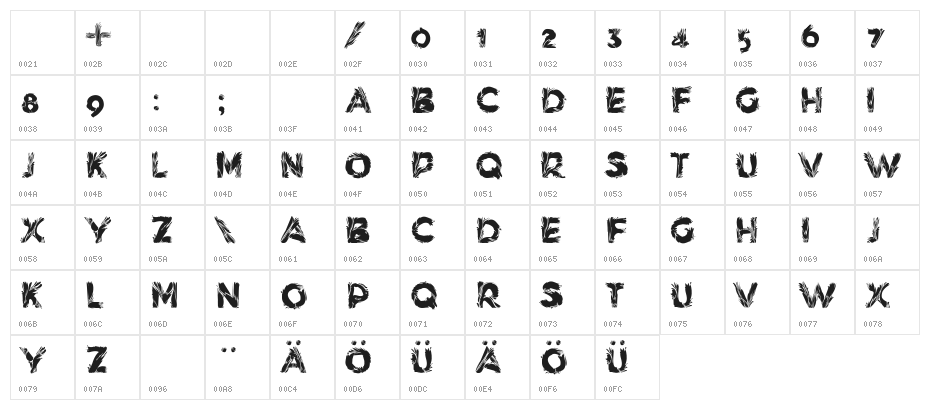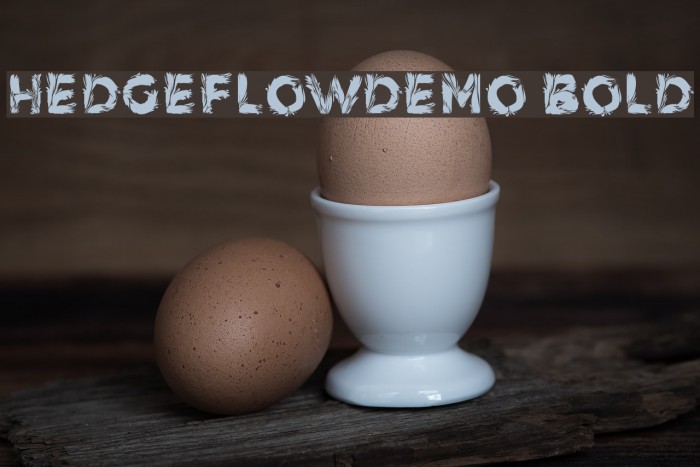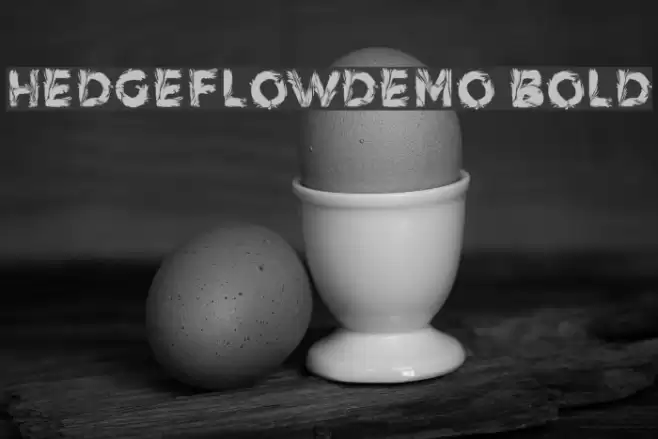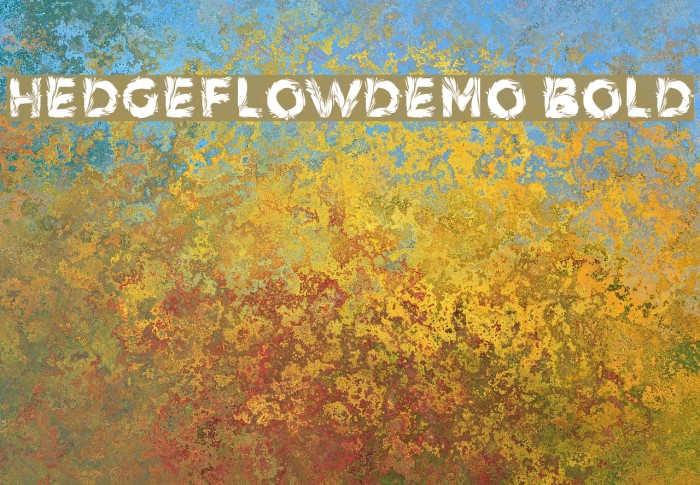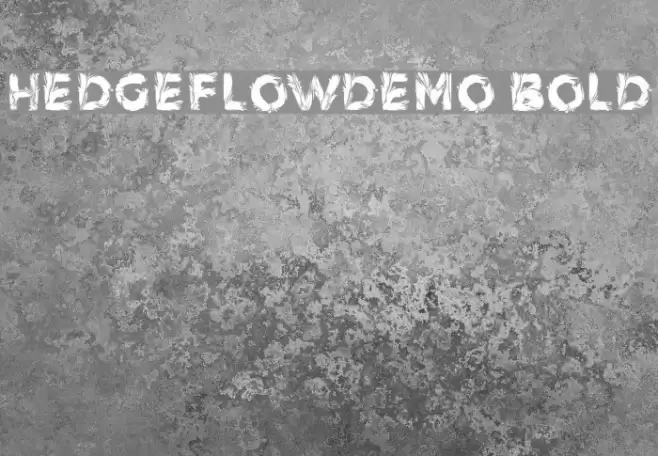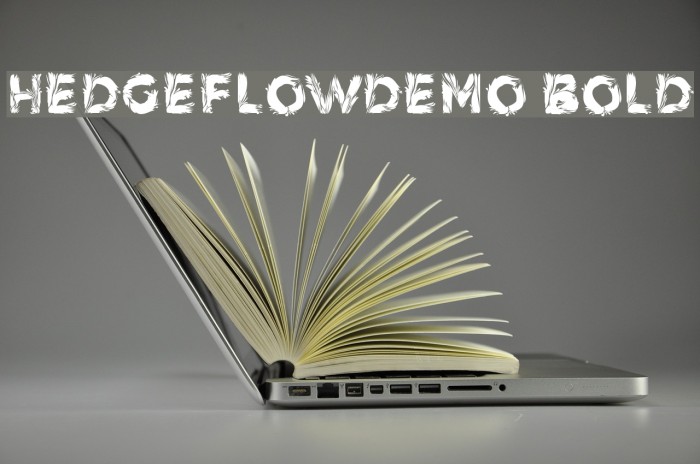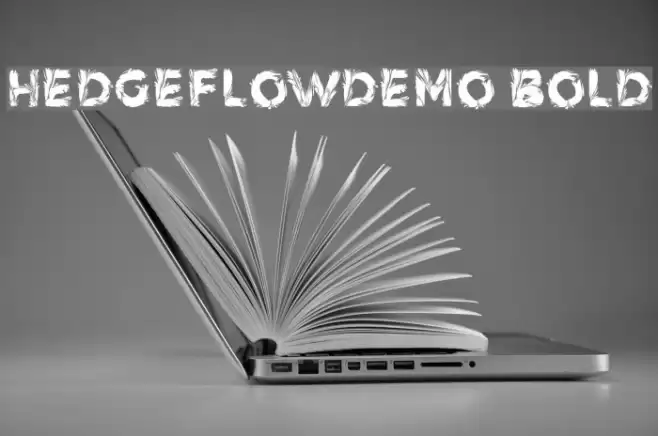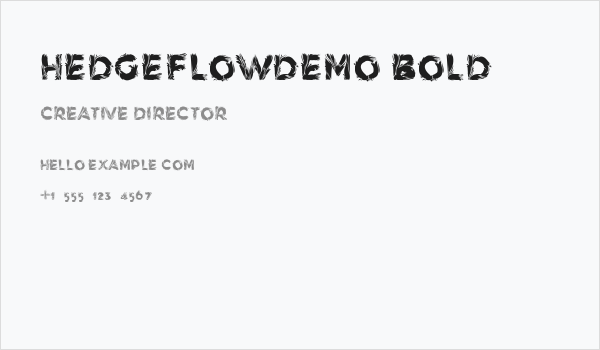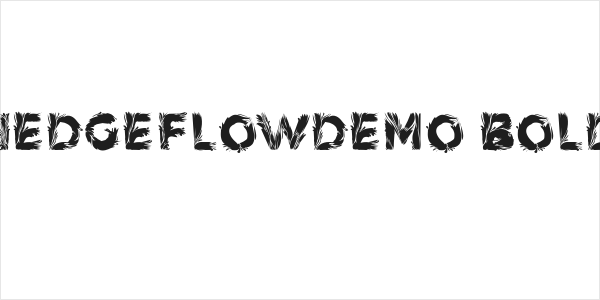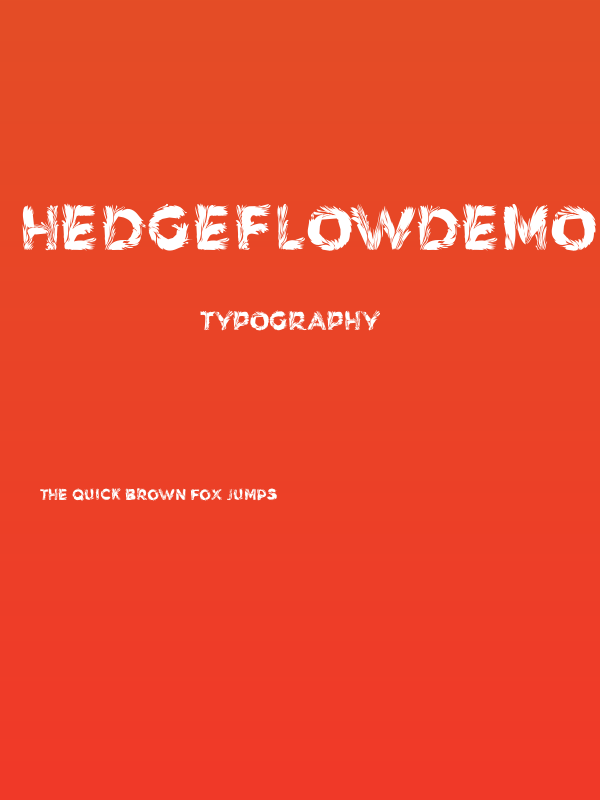
HedgeFlowDemo Bold Font
HedgeFlowDemo Bold Description
This font features a bold and dynamic design with a distinctive textured appearance, resembling brush strokes or feathers. Each character is crafted with intricate details, creating a sense of movement and energy. The uppercase and lowercase letters maintain a consistent style, while the numbers and special characters complement the overall aesthetic. The font's unique texture and boldness make it stand out, offering a creative and artistic flair that is perfect for eye-catching designs.
| Proposed Projects | Ideal for artistic projects, posters, album covers, and branding that requires a bold and creative touch. |